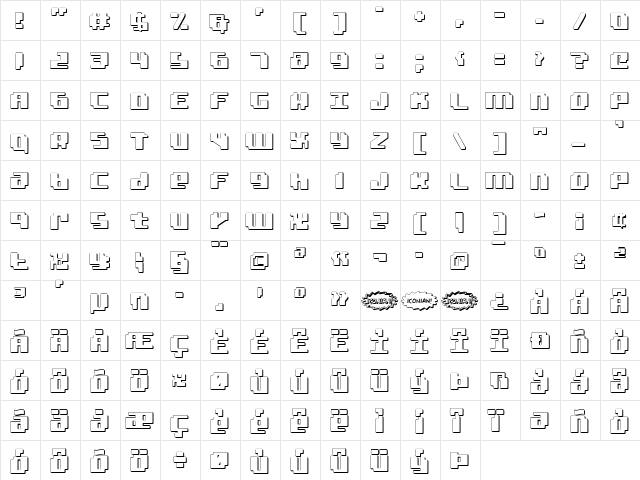
bad robot 3d 3d
| Designer | Dan Zadorozny |
Design Context for bad robot 3d Typeface
bad robot 3d is a composed and adaptable typeface that performs quietly and consistently across a wide range of design contexts.